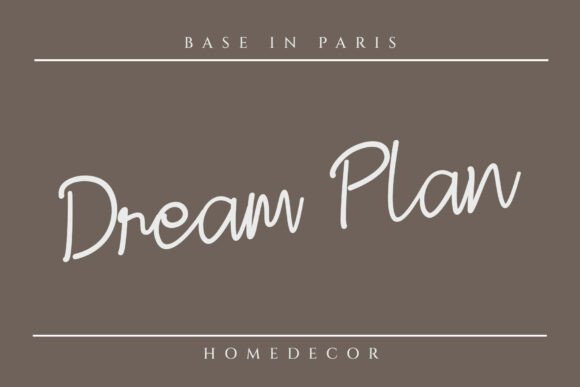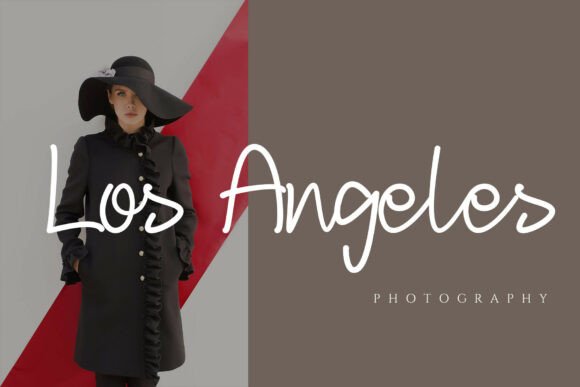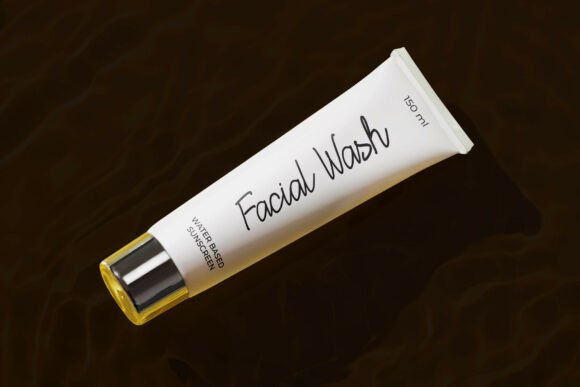
Introduction to Kerana Font
As you sit in front of your computer, staring at a blank page, the creative juices start flowing. You’re about to embark on a design project that requires a touch of elegance and sophistication. And that’s where the perfect font comes in – a font that can elevate your design from ordinary to extraordinary. For designers, finding the right font can be a challenge, but with the right tool, it can make all the difference.
One such font that stands out from the crowd is the Kerana Font. With its simple yet professional look, this font is perfect for creating stunning punctuation and stylish text. Its modern feel and elegant accents make it an ideal choice for designers looking to add a touch of sophistication to their projects.
Kerana Font
- Unique, hand-drawn design style with intricate details
- Perfect for use in digital designs, logos, and branding materials
Honest Review: Kerana Font
As a designer, I’m always on the lookout for high-quality design resources to elevate my creative projects. Recently, I had the chance to try out the Kerana Font, and I’m excited to share my honest review with you.
- Unique and Creative Design: The Kerana Font boasts a distinctive and modern design that sets it apart from other fonts.
- High-Quality Renditions: The font is available in various weights and styles, ensuring that you have the perfect fit for your design needs.
- Limited Customization Options: While the font is beautiful, it may not be suitable for every design project, especially those requiring a more unique or custom look.
Overall, I’m impressed with the Kerana Font’s high quality and unique design. While it may have some limitations, it’s an excellent resource for designers working on creative projects that require a modern and stylish font. I’d definitely recommend giving it a try – especially since it’s available for free download!
Kerana Font
Kerana Font is a high-quality design resource perfect for creative projects. You can download it for free, giving you the flexibility to experiment with different designs. One of its key features is the transparent background, allowing you to easily layer it over images or other design elements.
Tips for Getting the Most Out of Kerana Font
To get the most out of Kerana Font, experiment with different font sizes, colors, and layering techniques. The transparent background feature allows for endless possibilities, so don’t be afraid to get creative and try new things.
Kerana Font is perfect for a variety of creative projects, including graphic design, digital art, and even web design. Its high-quality design and transparent background make it an ideal choice for anyone looking to add a touch of sophistication to their designs.